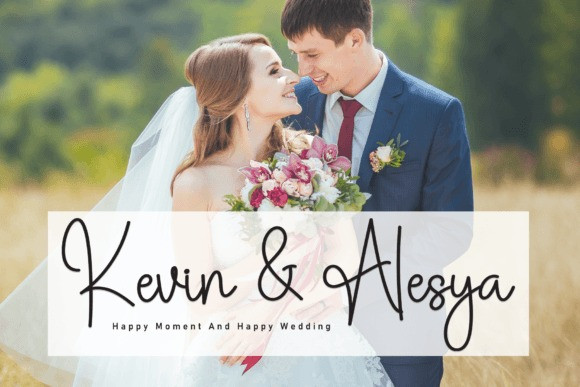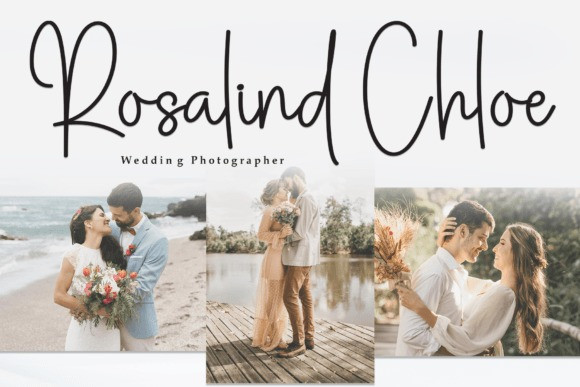
Biscuit Christmas Font
Biscuit Christmas Font is a charming and festive handwritten font that brings warmth and joy to your holiday designs. With its delicate strokes and whimsical curves, this font captures the essence of the season, evoking a sense of coziness and celebration. Perfect for adding a touch of handmade cheer to your Christmas cards, invitations, and festive projects, Biscuit Christmas spreads the spirit of the holidays with every stroke.